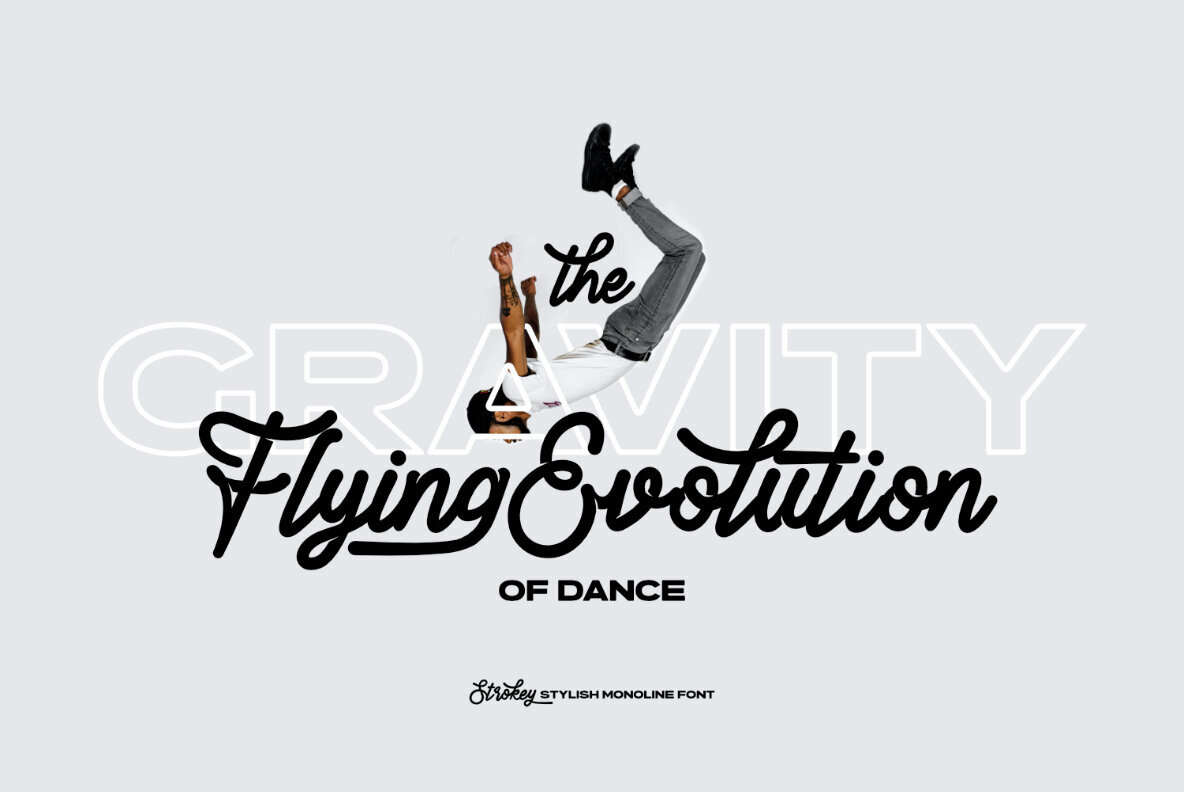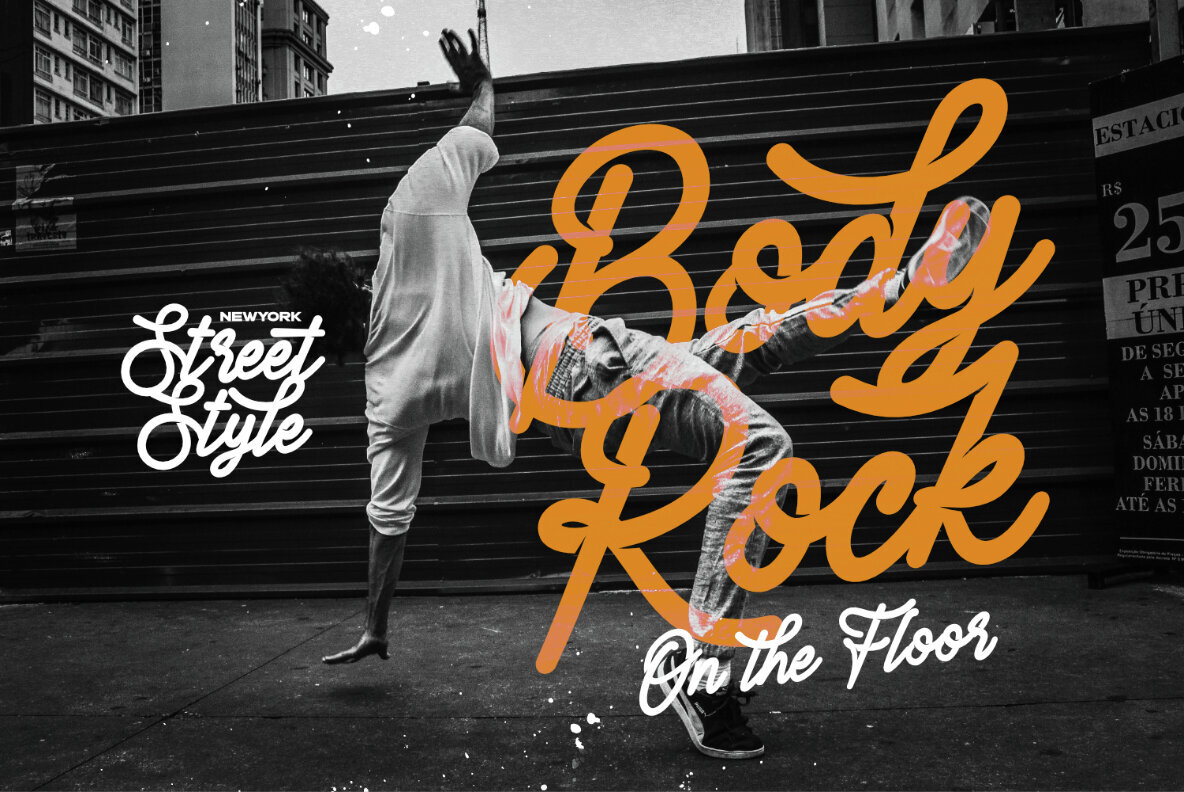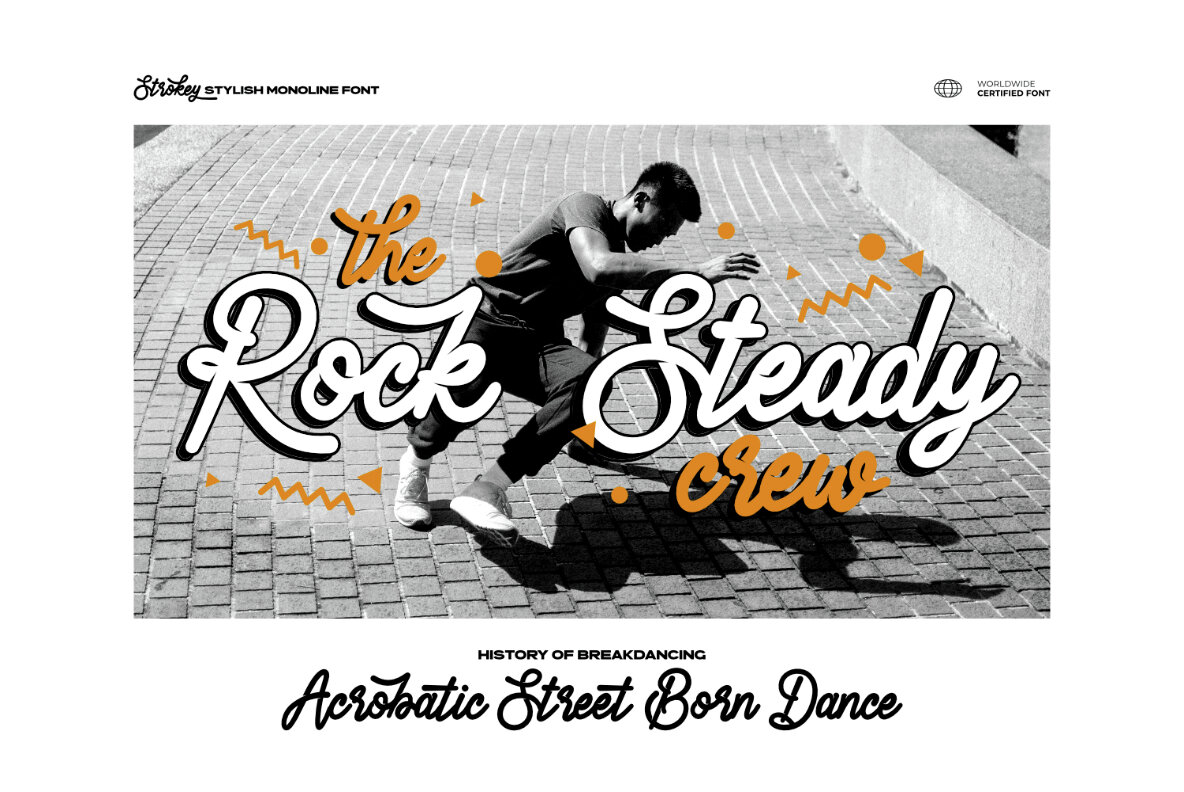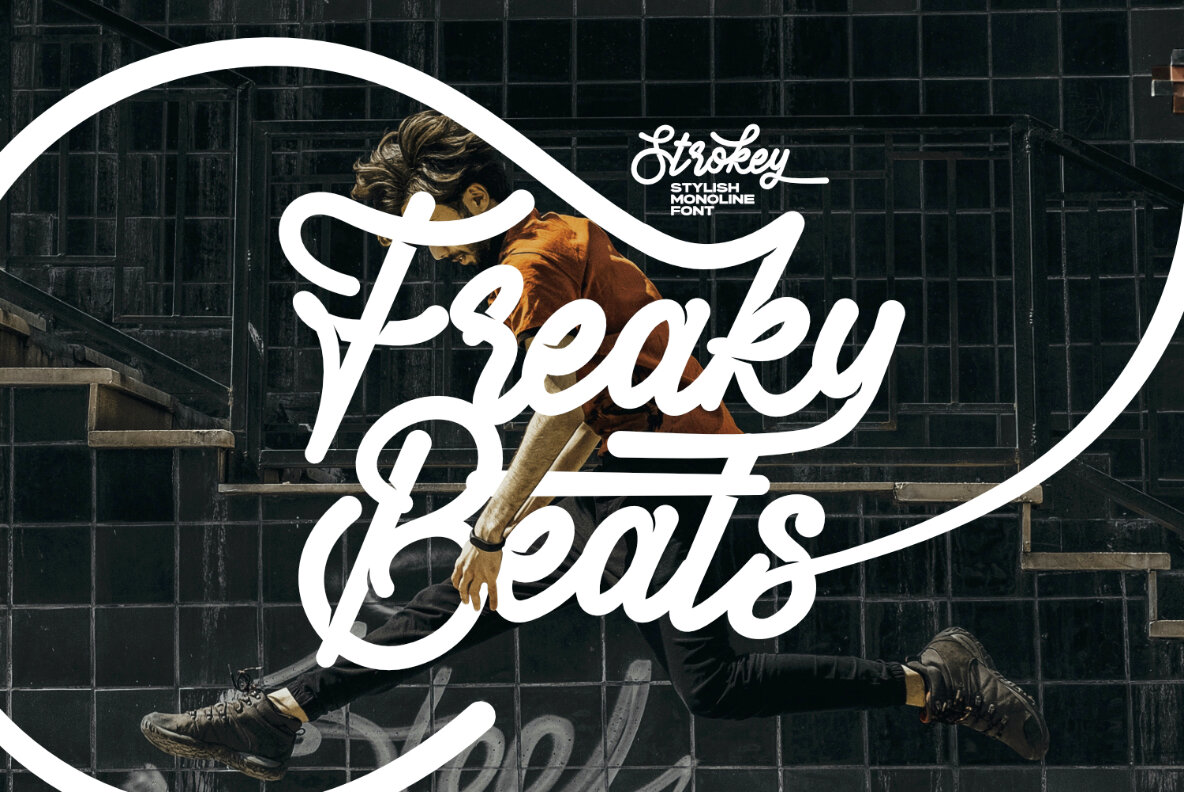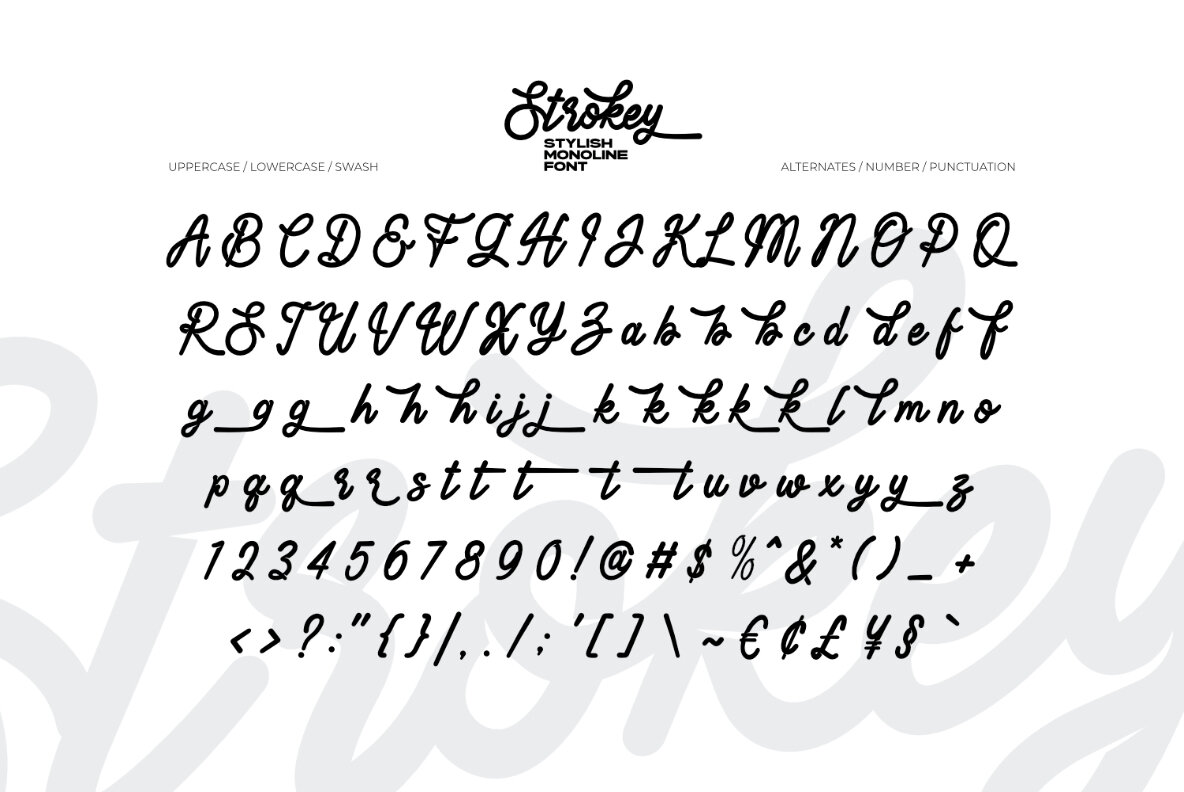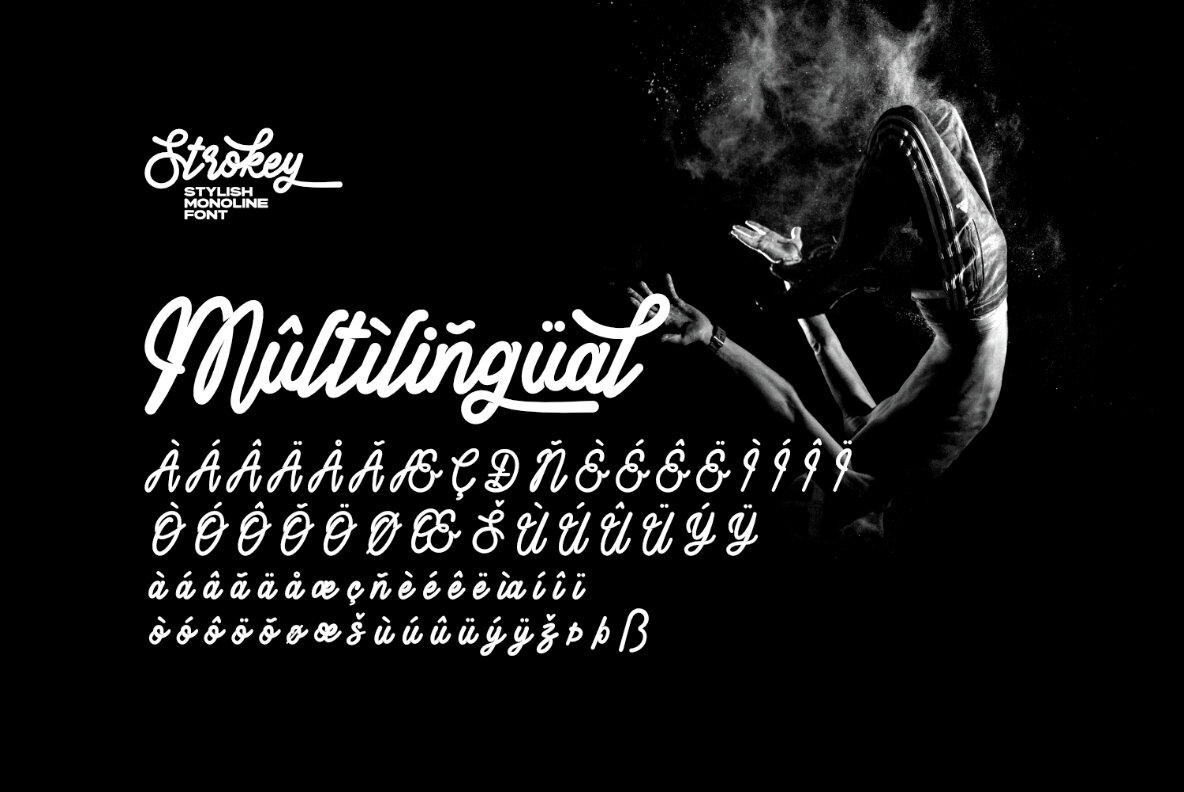
Strokey Font
Strokey Regular
Proudly present Strokey - Stylish Monoline Font, created by ikiiko. A cutting-edge font that effortlessly combines style and versatility. This monoline typeface is designed to make a bold statement with its sleek and modern appearance, perfectly suited for a street style aesthetic. The typeface's fluid strokes give your writing a modern edge, and its monoline construction gives it a dependable and elegant appearance. Strokey is the perfect option for projects that require a contemporary and street-smart vibe because it's more than simply a typeface—it's a visual representation of urban sophistication This font is very suitable for making a fashion brand, streetwear, poster, logo event, magazine layout, quotes, or simply as a stylish text overlay to any background image.